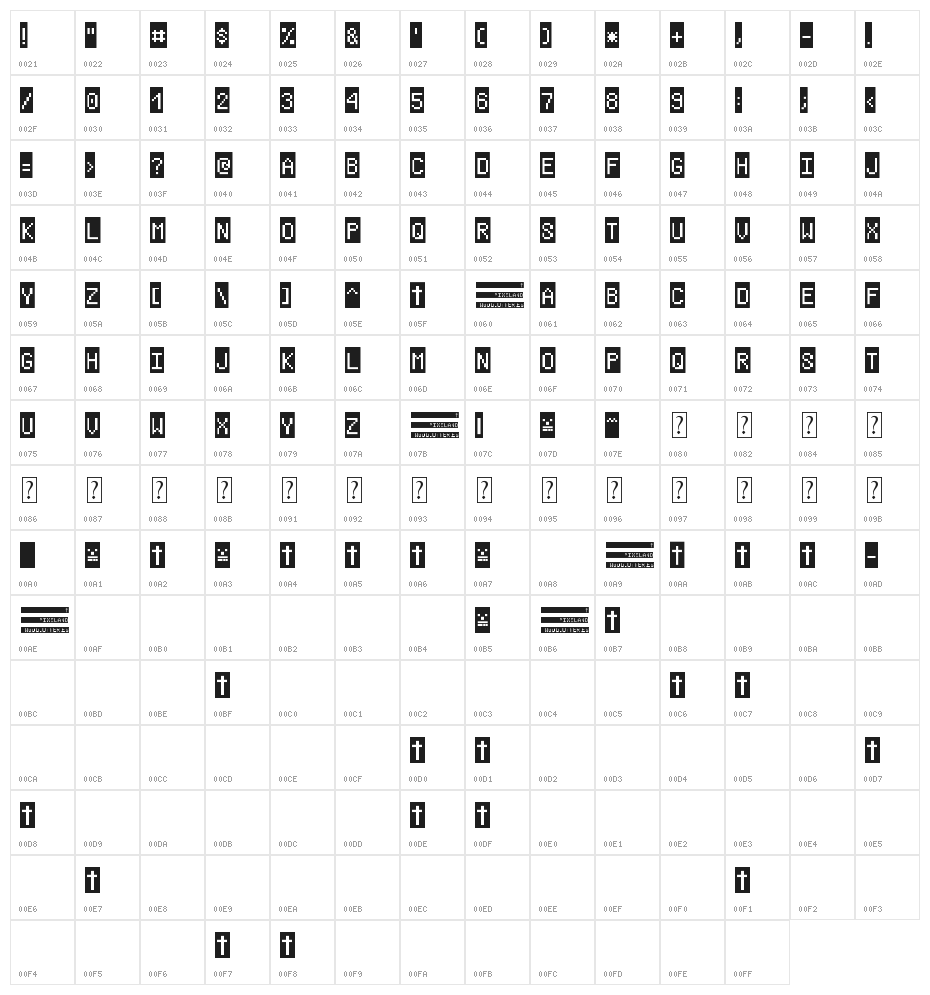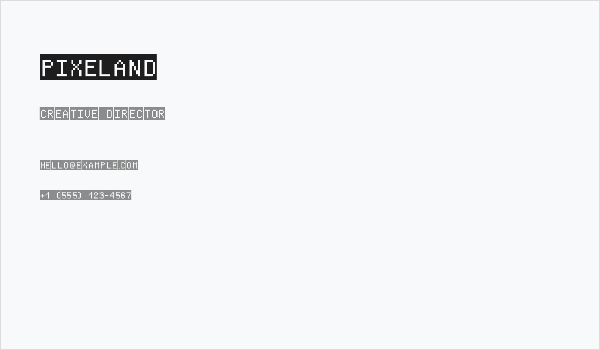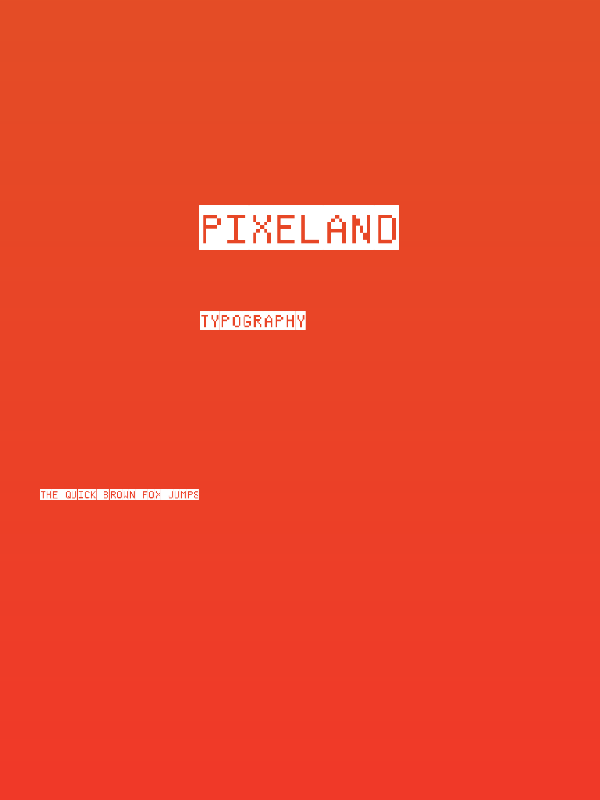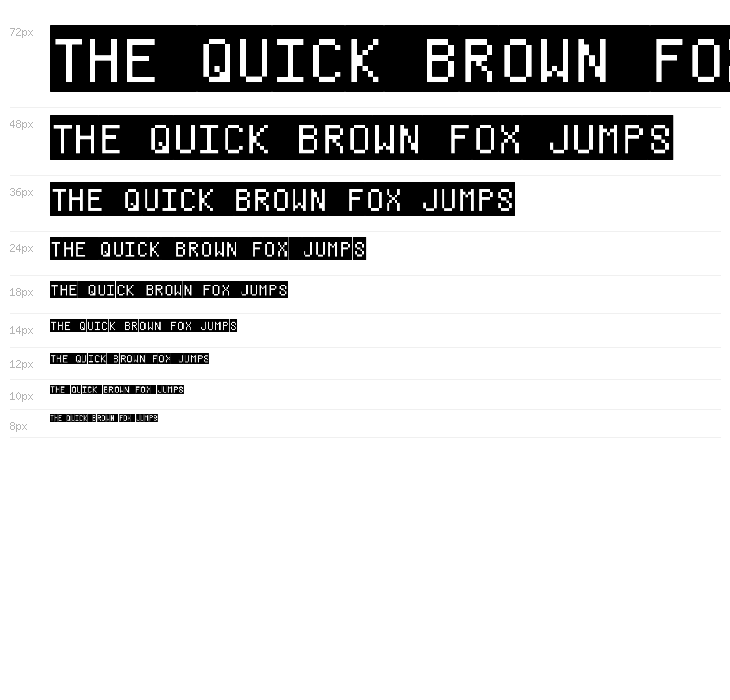
Pixeland Font
Pixeland Description
This font embodies a pixelated, retro aesthetic reminiscent of early digital displays and video games. Each character is constructed with a grid-like precision, creating a blocky and geometric appearance. The uniformity in stroke width and the sharp, angular edges contribute to its digital feel. The characters are evenly spaced, ensuring clarity and readability, even at smaller sizes. This style is particularly effective for projects that aim to evoke nostalgia or a tech-oriented theme. The font's simplicity and straightforward design make it versatile for various applications.
| Overall Style | Retro, Digital |
| Use Case | Headlines, Logos, Digital displays |
| Proposed Projects | Ideal for video game graphics, tech-themed posters, digital art projects, and retro-style branding. |